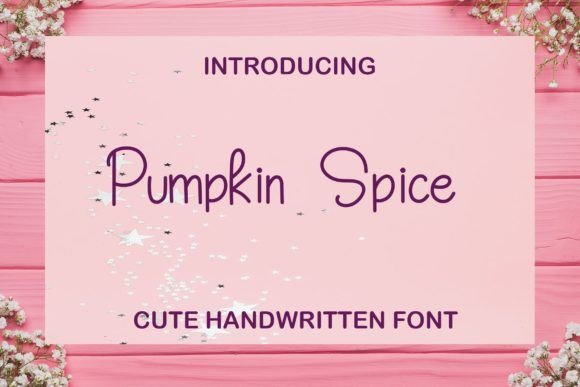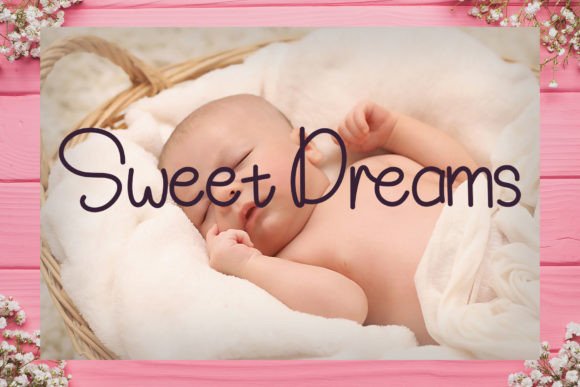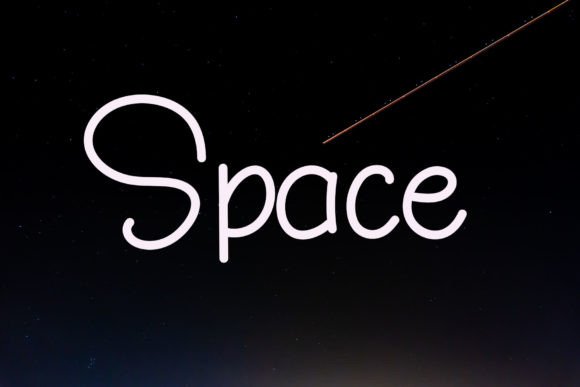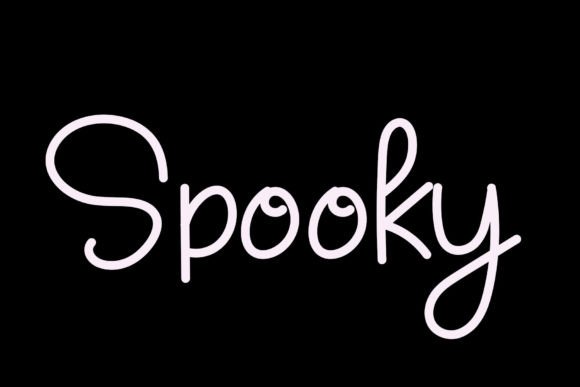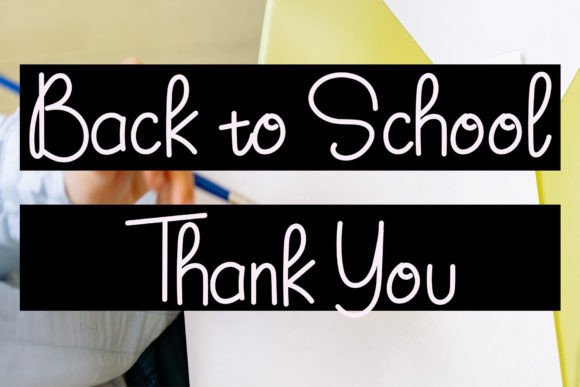
Pumpkin Spice Font
About Pumpkin Spice Font
“Pumpkin Spice” is a neat and beautiful handwritten font characterized by an elegant touch. This font is perfectly suited for your favorite projects, thanks to its incredibly distinct and timeless style. As you embrace “Pumpkin Spice,” you’ll fall in love with its unique charm and versatility, allowing you to create spectacular designs that leave a lasting impression.
The font’s neat and beautiful design imparts a sense of elegance and sophistication to your creative work. Whether you’re working on branding, logos, invitations, stationery, or any project that demands a touch of timeless beauty, “Pumpkin Spice” can enhance the visual appeal and memorability of your designs.
In the realm of design, fonts play a pivotal role in conveying style, mood, and visual identity. “Pumpkin Spice” excels in these aspects by offering a handwritten style that is both distinct and versatile. Its aesthetics infuse your designs with an authentic and elegant dimension, making them captivating and memorable.
In summary, “Pumpkin Spice” is more than just a font; it’s a neat and beautiful design tool that can elevate your projects to a new level of elegance and charm. Its timeless style and distinctive handwritten touch make it an ideal choice for designers seeking to add a touch of sophistication to their work. Whether you’re an experienced designer or just beginning your creative journey, “Pumpkin Spice” is the font that can help you create designs that are truly spectacular and timeless.